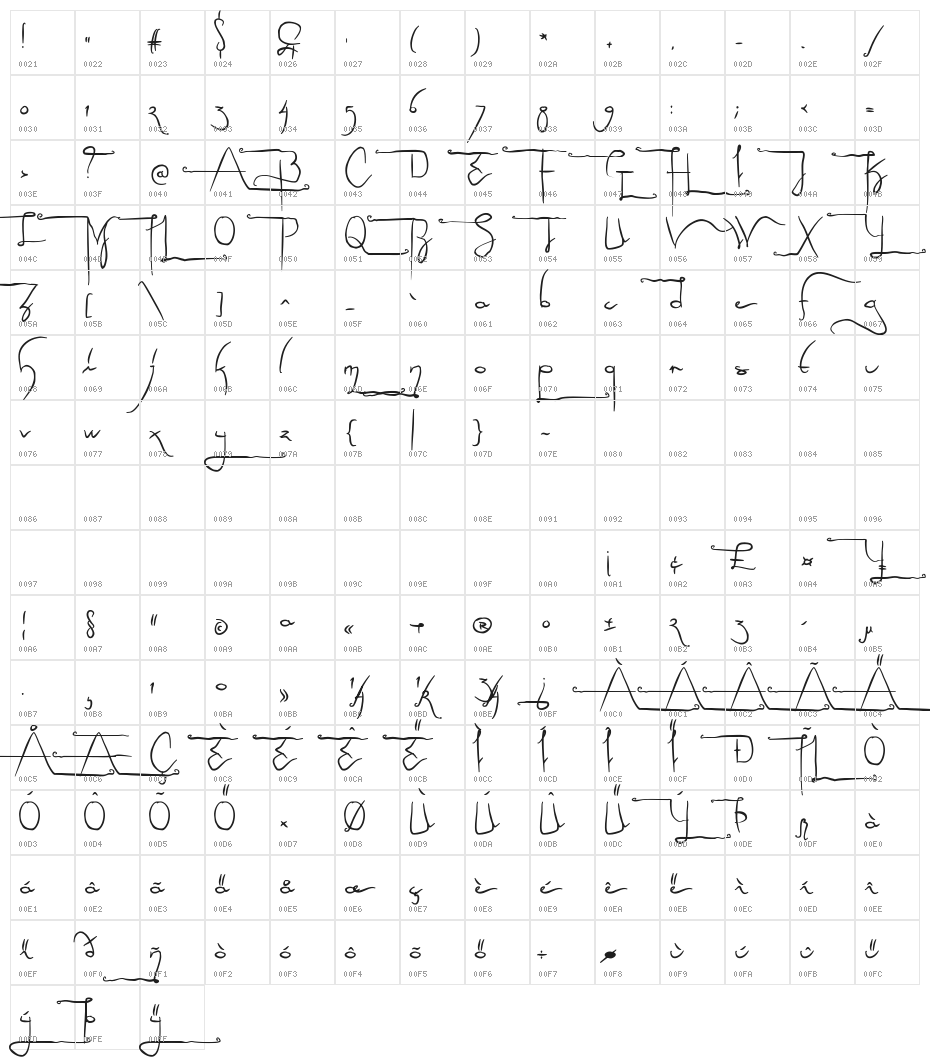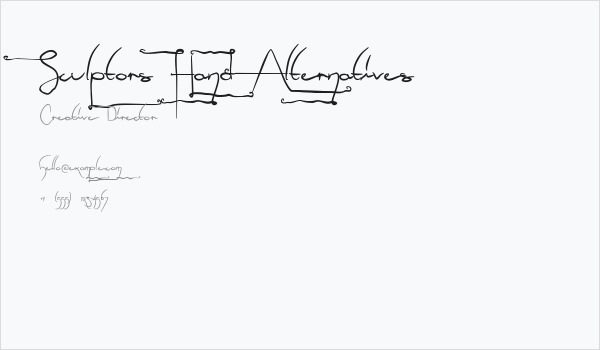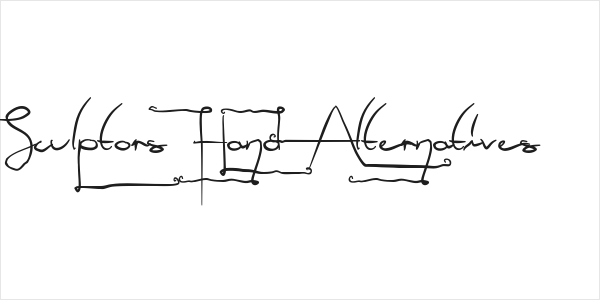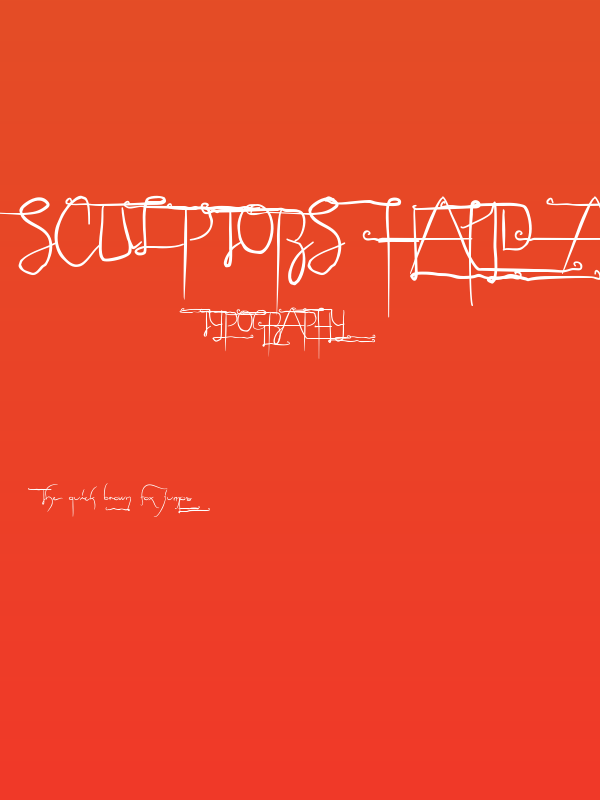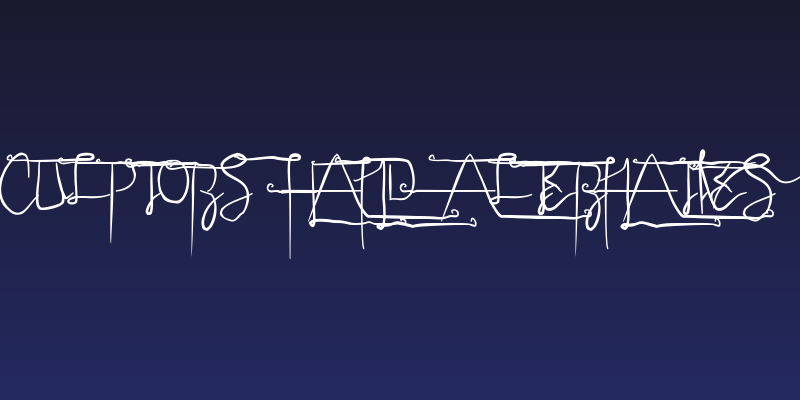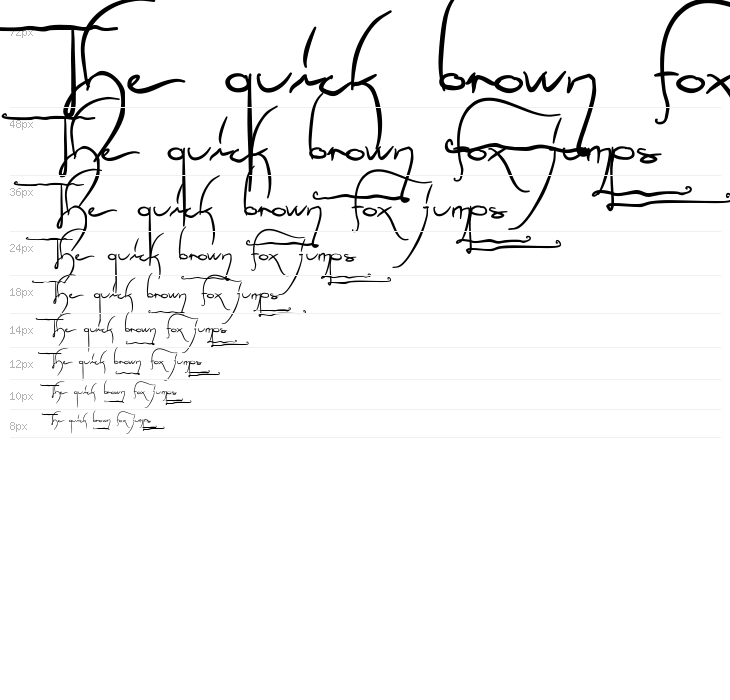
Sculptors Hand Alternatives Font
Sculptors Hand Alternatives Description
This font exhibits a highly decorative and artistic style, characterized by intricate loops and flourishes that give it a hand-drawn appearance. The uppercase letters are particularly elaborate, with extended strokes and embellishments that create a sense of movement and elegance. The lowercase letters maintain this ornate style, though they are slightly more restrained, allowing for readability while still showcasing the font's unique flair. The numerals and special characters follow the same decorative theme, with swirling lines and creative forms that make each character stand out. This font is ideal for projects that require a touch of sophistication and artistic expression.
| Proposed Projects | Ideal for wedding invitations, artistic posters, branding for luxury products, and any project that requires a sophisticated, hand-crafted look. |